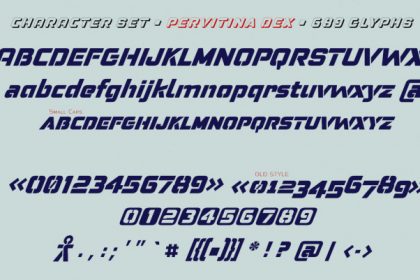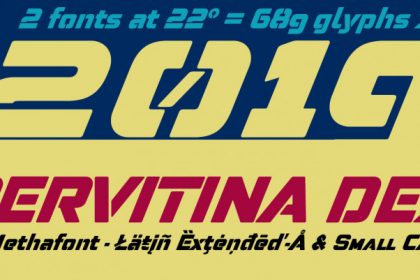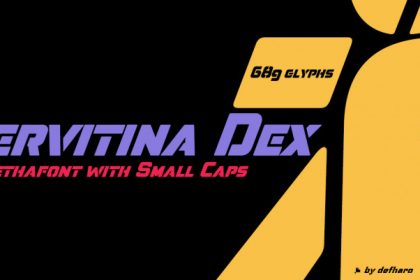
Pervitina Dex Typeface
Pervitina Dex is a display type, thick and inclined at 22° and Neo-Stencil style with rounded corners that includes small letters, several sets of numerals, the bitcoin symbol and other cryptocurrencies. An exclusive font for headlines and brands with superior readability and careful Kerning settings.